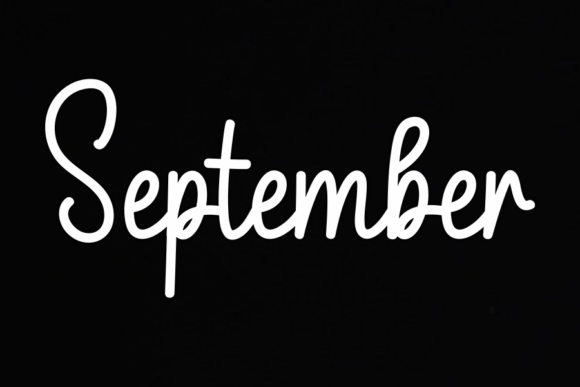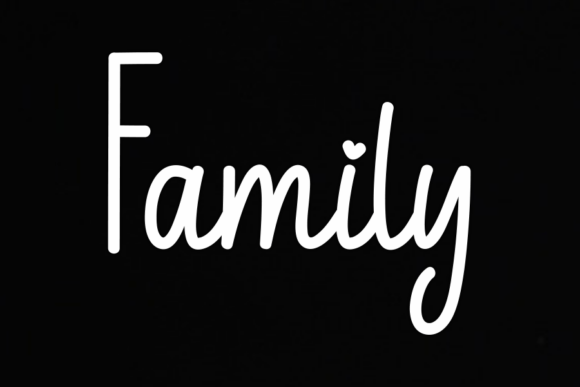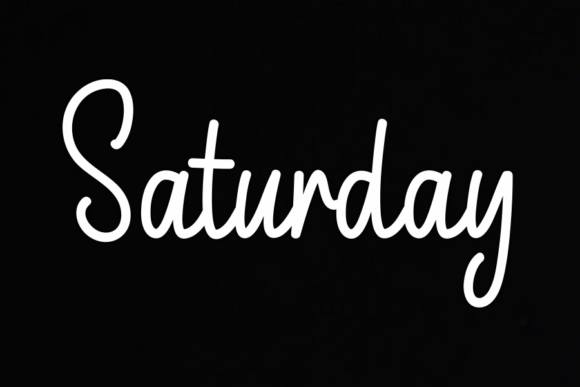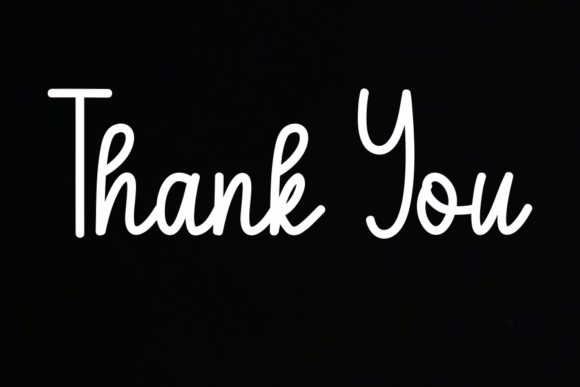
Introducing Cherry Font: A Simple yet Versatile Handwritten Font
Are you looking for a font that can add a touch of simplicity and natural elegance to your designs? Look no further than Cherry Font, a beautiful handwritten font that is perfect for a wide range of applications. From greeting cards to headlines, Cherry Font is a versatile and stylish choice that is sure to impress.
What is Cherry Font?
Cherry Font is a simple handwritten font that is designed to be easy to read and visually appealing. Its clean lines and natural flow make it perfect for adding a personal touch to your designs. Whether you’re creating a greeting card, a poster, or a website, Cherry Font is a great choice.
Key Features of Cherry Font
- Simple and Handwritten: Cherry Font has a simple and handwritten design that gives it a natural and effortless feel.
- Versatile: This font is perfect for a wide range of applications, from greeting cards to headlines, and can be used in both digital and print designs.
- Easy to Read: Cherry Font is designed to be easy to read, making it perfect for body text and headlines.
- Natural Flow: The font has a natural flow that makes it perfect for adding a personal touch to your designs.
Uses of Cherry Font
Cherry Font is a versatile font that can be used in a wide range of applications, including:
- Greeting Cards: Add a personal touch to your greeting cards with Cherry Font.
- Headlines: Use Cherry Font to create eye-catching headlines for your blog posts, articles, and website.
- Posters: Create beautiful posters with Cherry Font that are perfect for advertising, promoting events, or showcasing your work.
- Websites: Use Cherry Font on your website to add a touch of elegance and sophistication.
- Social Media: Use Cherry Font to create engaging social media posts that stand out from the crowd.
Benefits of Using Cherry Font
There are many benefits to using Cherry Font in your designs, including:
- Unique Look: Cherry Font has a unique and stylish look that will set your designs apart from the crowd.
- Easily Readable: The font is easy to read, making it perfect for body text and headlines.
- Versatile: Cherry Font can be used in a wide range of applications, from digital designs to print materials.
- Time-Saving: With Cherry Font, you can create beautiful designs in no time, saving you time and effort.
Tips for Using Cherry Font
Here are some tips for using Cherry Font in your designs:
- Pair with Other Fonts: Cherry Font pairs well with other fonts, so feel free to experiment with different combinations.
- Use in Combination with Images: Use Cherry Font in combination with images to create visually appealing designs.
- Experiment with Colors: Cherry Font looks great in a variety of colors, so don’t be afraid to experiment and find the perfect color for your design.
- Keep it Simple: Cherry Font is a simple font, so keep your design simple and elegant to let the font shine.